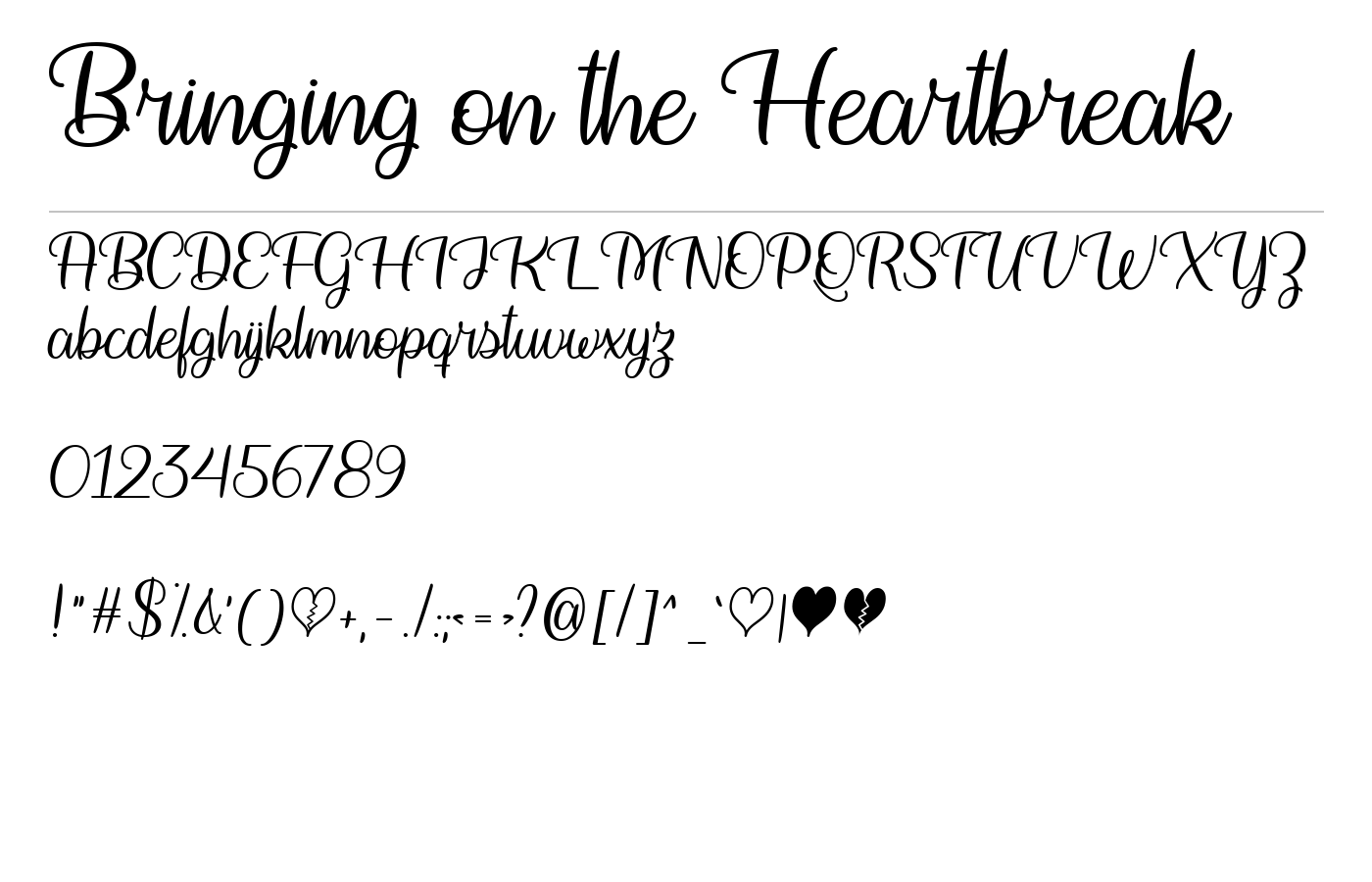
Bringing on the Heartbreak is a graceful script font with elegant, flowing letterforms that combine a delicate, handwritten feel with refined curves and subtle flourishes. Its slender weight and narrow width make it ideal for projects seeking a romantic, sophisticated touch, especially in branding, invitations, and feminine design themes. The font's expressive style communicates warmth and charm while maintaining readability in both uppercase and lowercase, perfect for headlines and decorative use.
Bringing on the Heartbreak Font
About Bringing on the Heartbreak Font